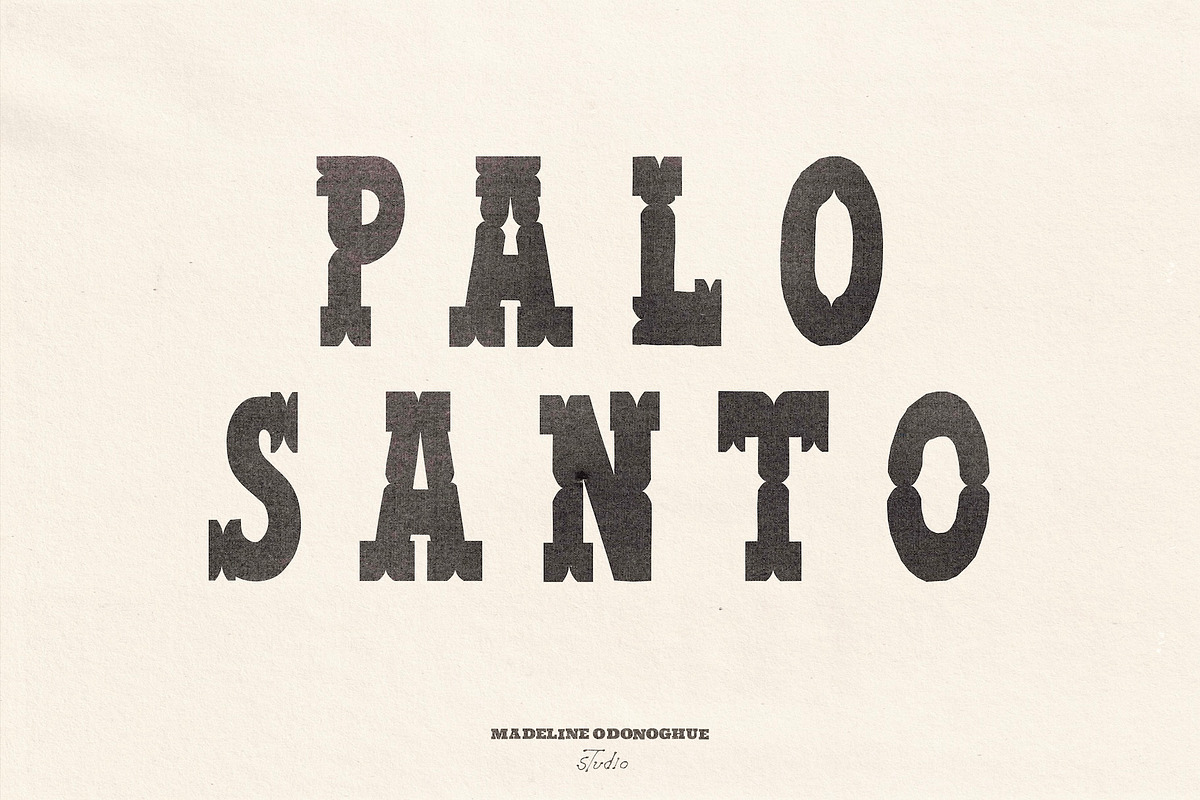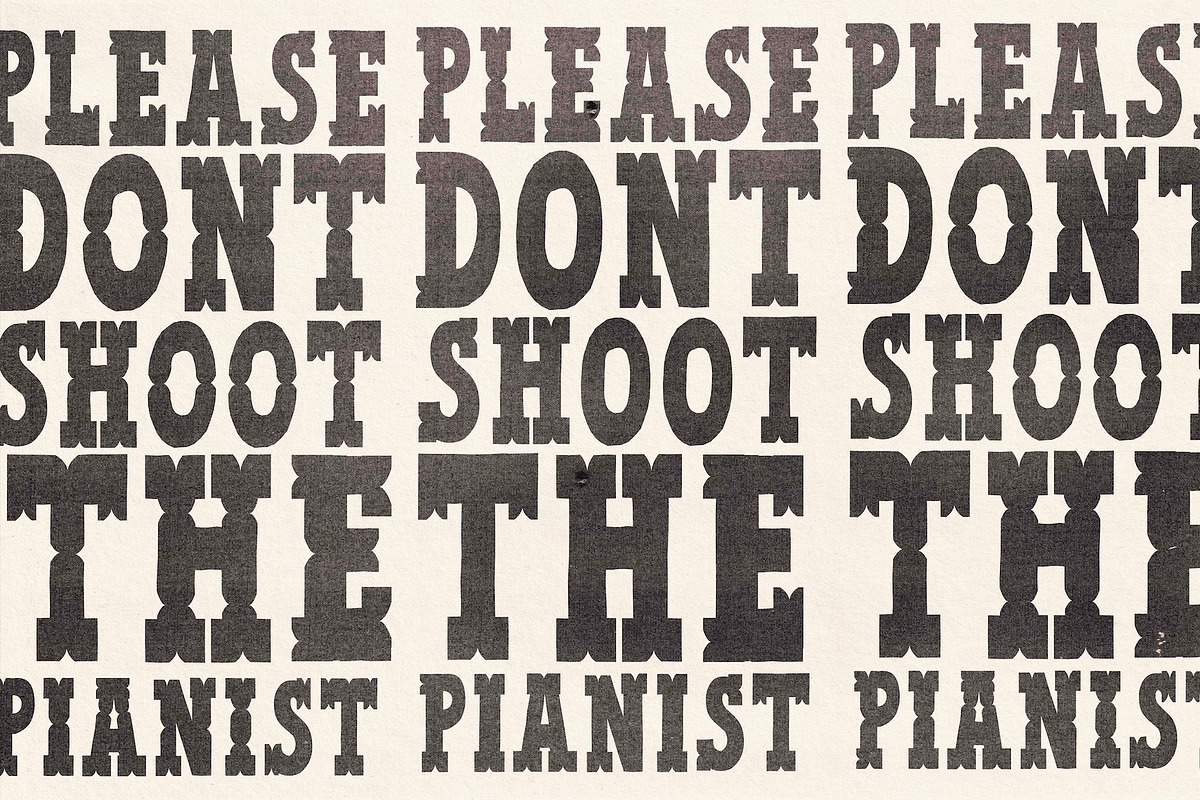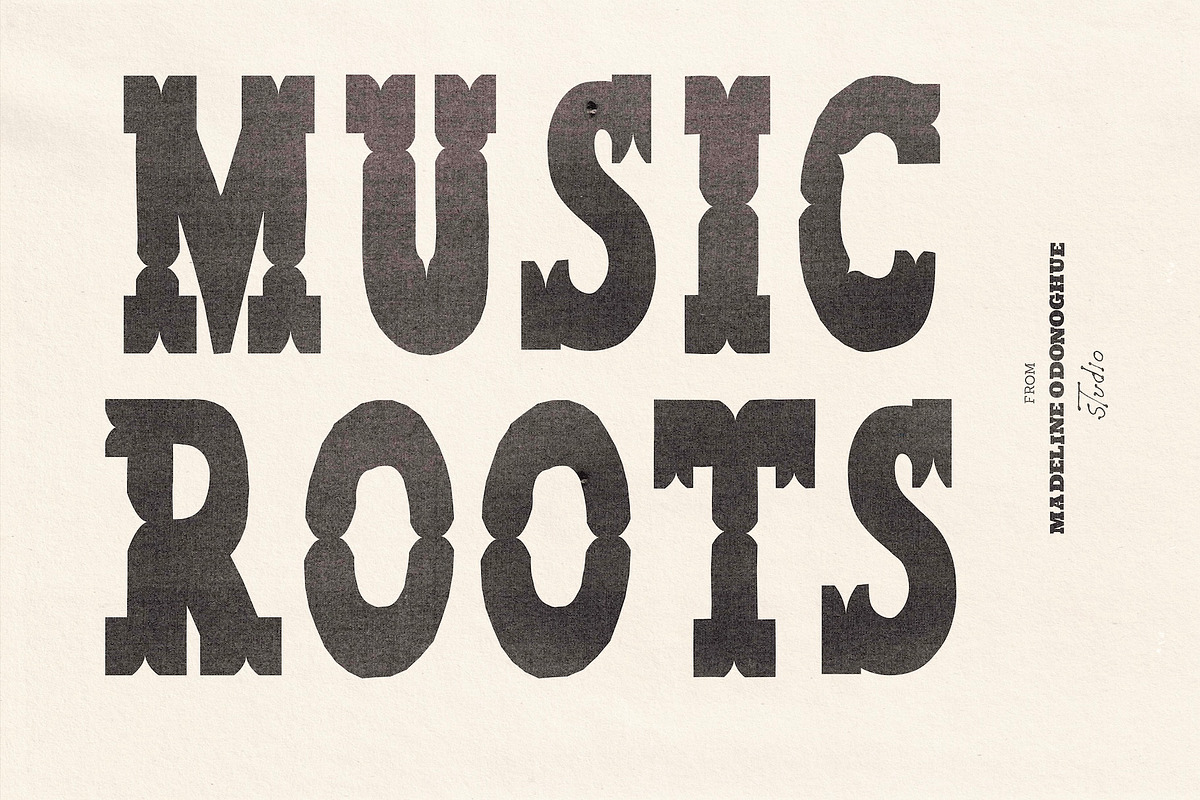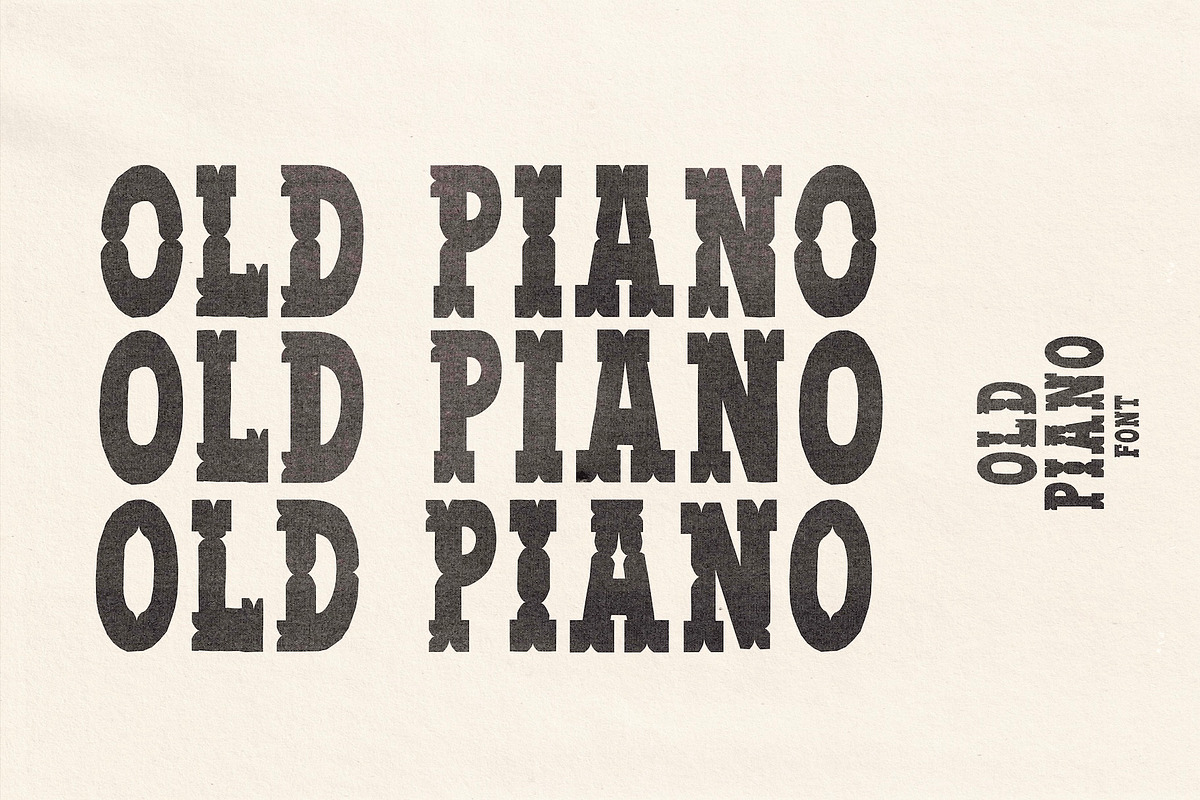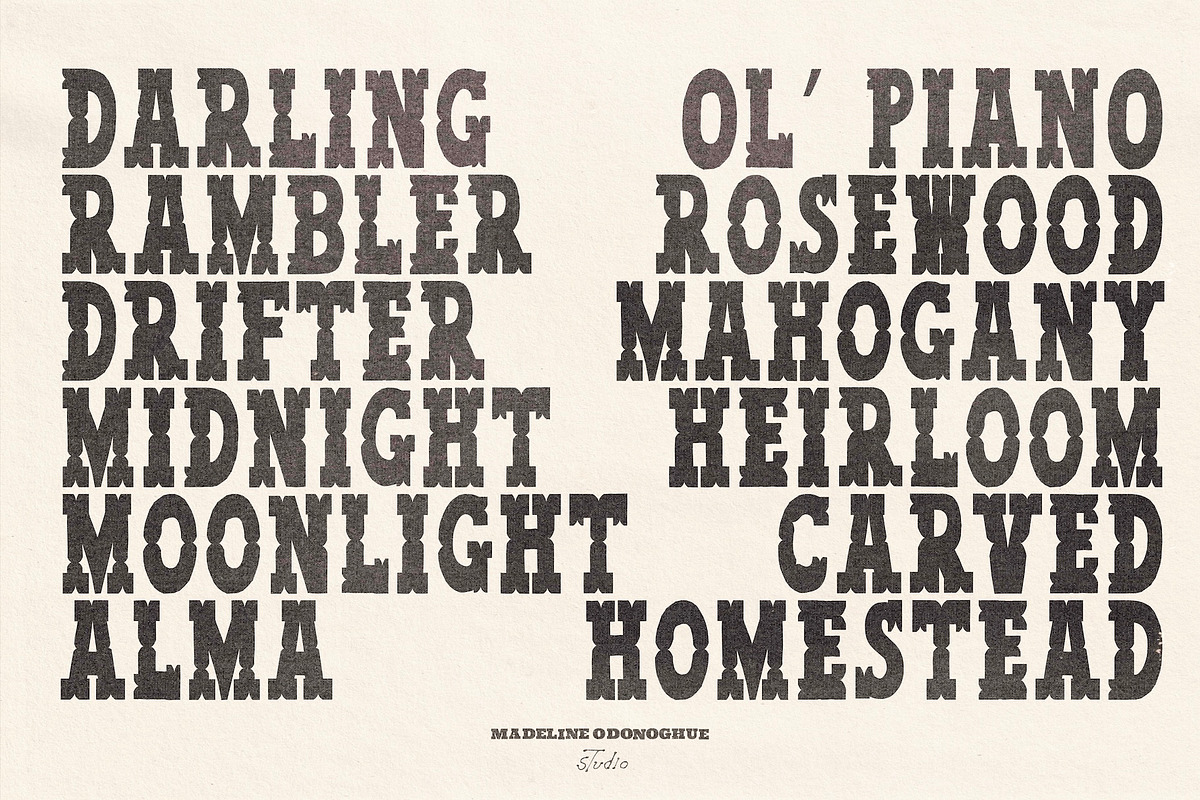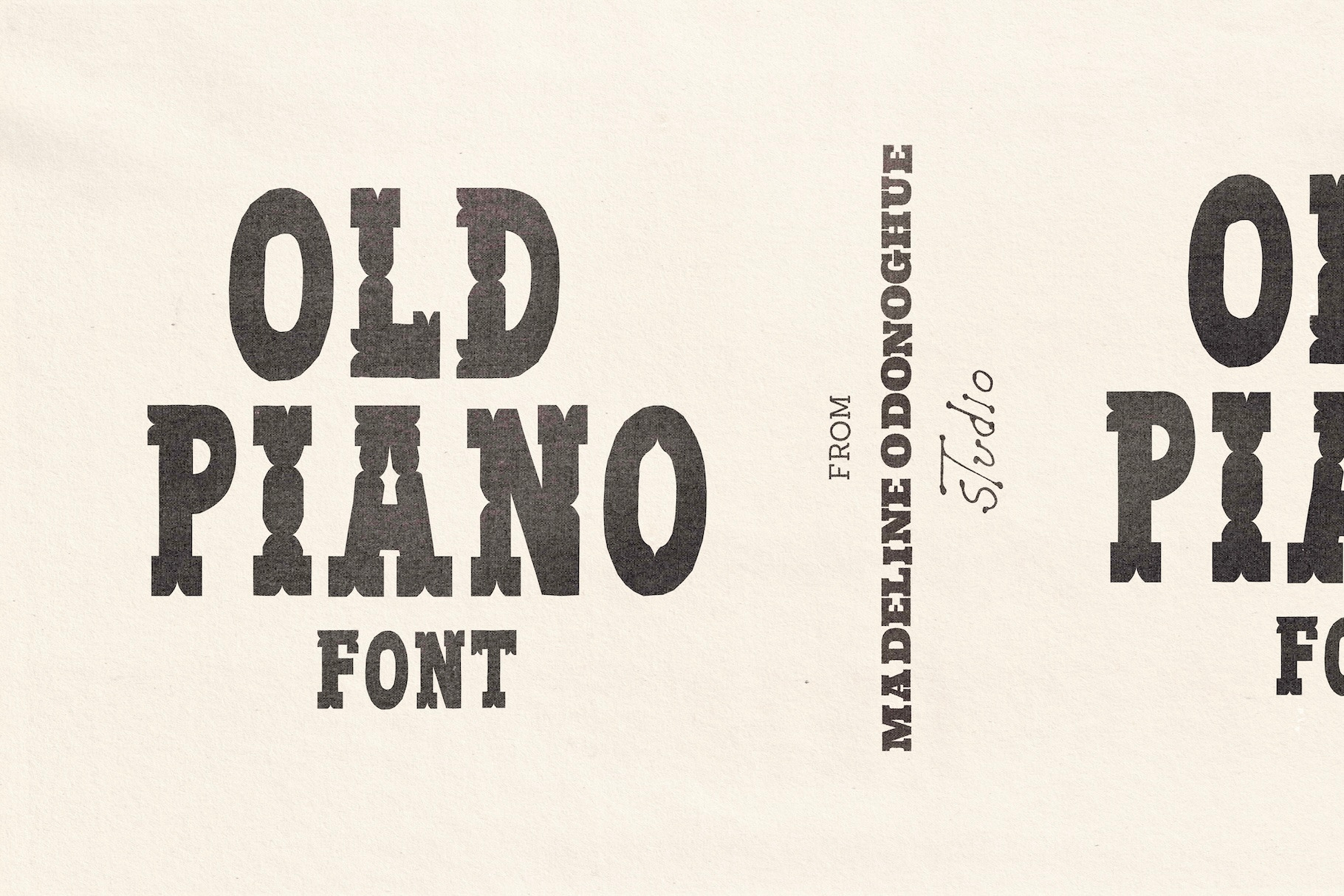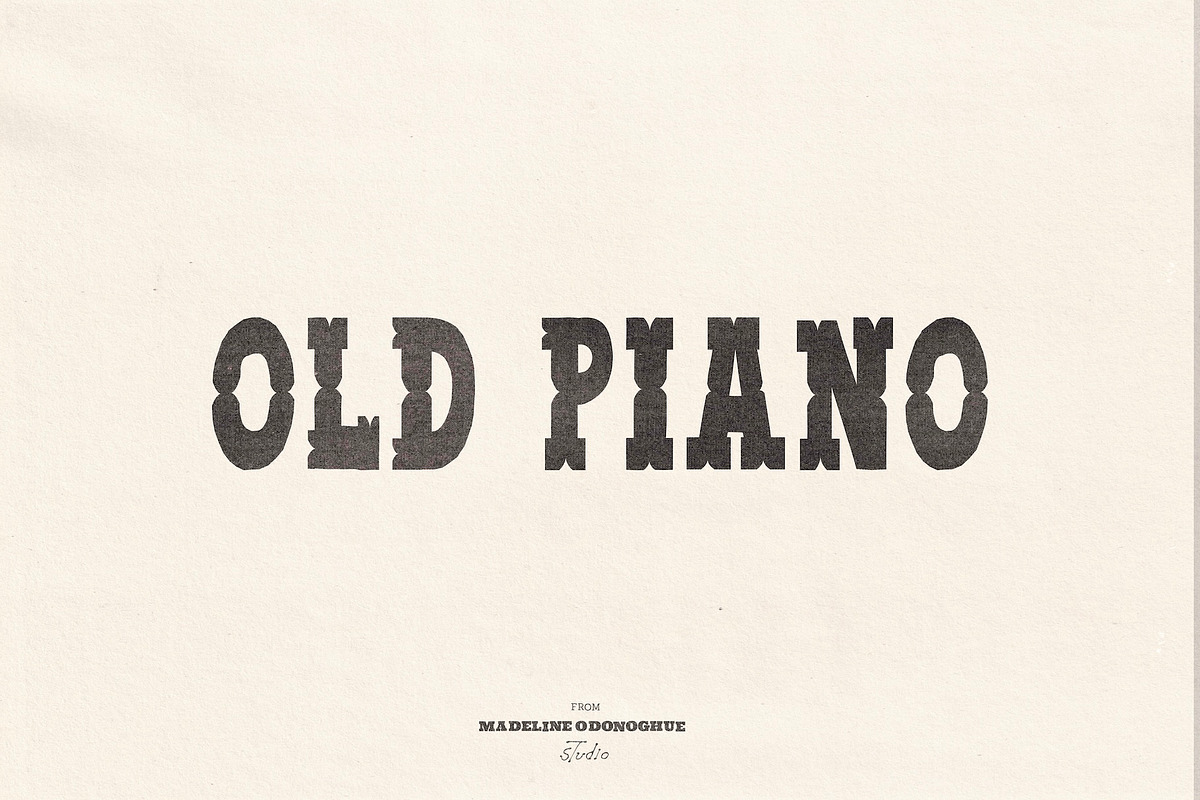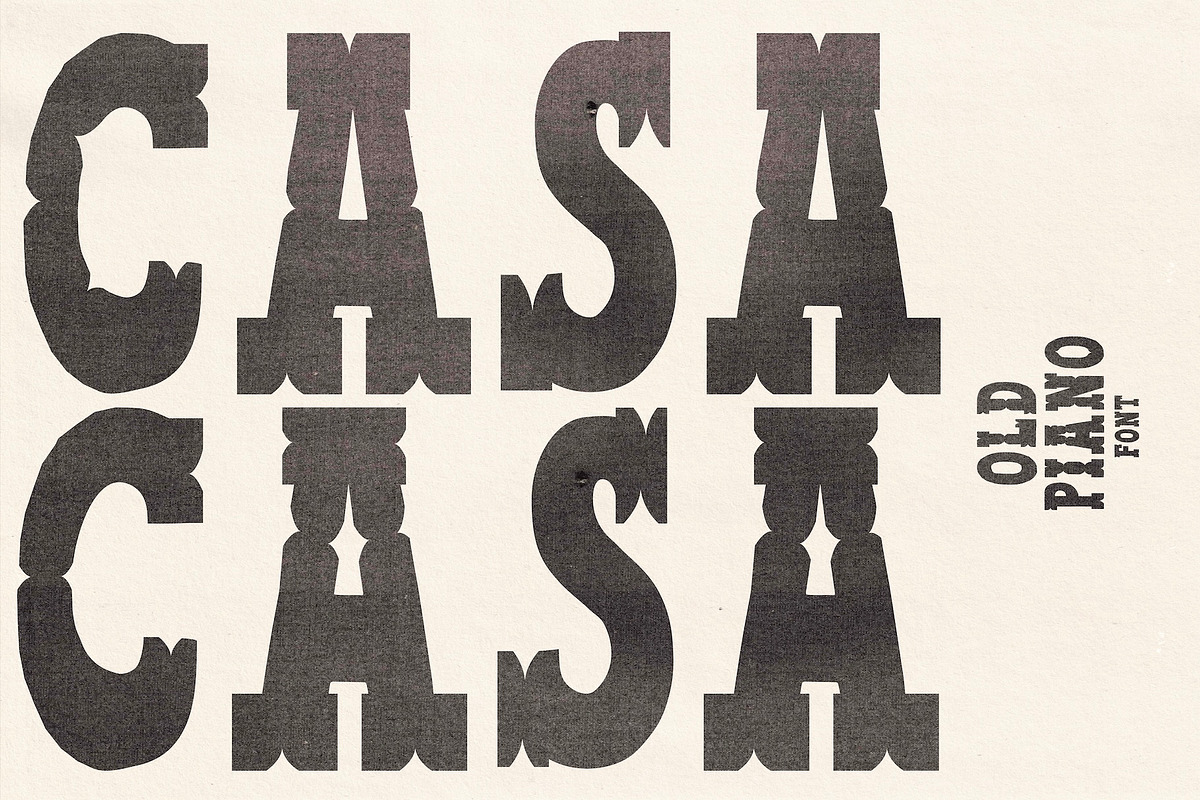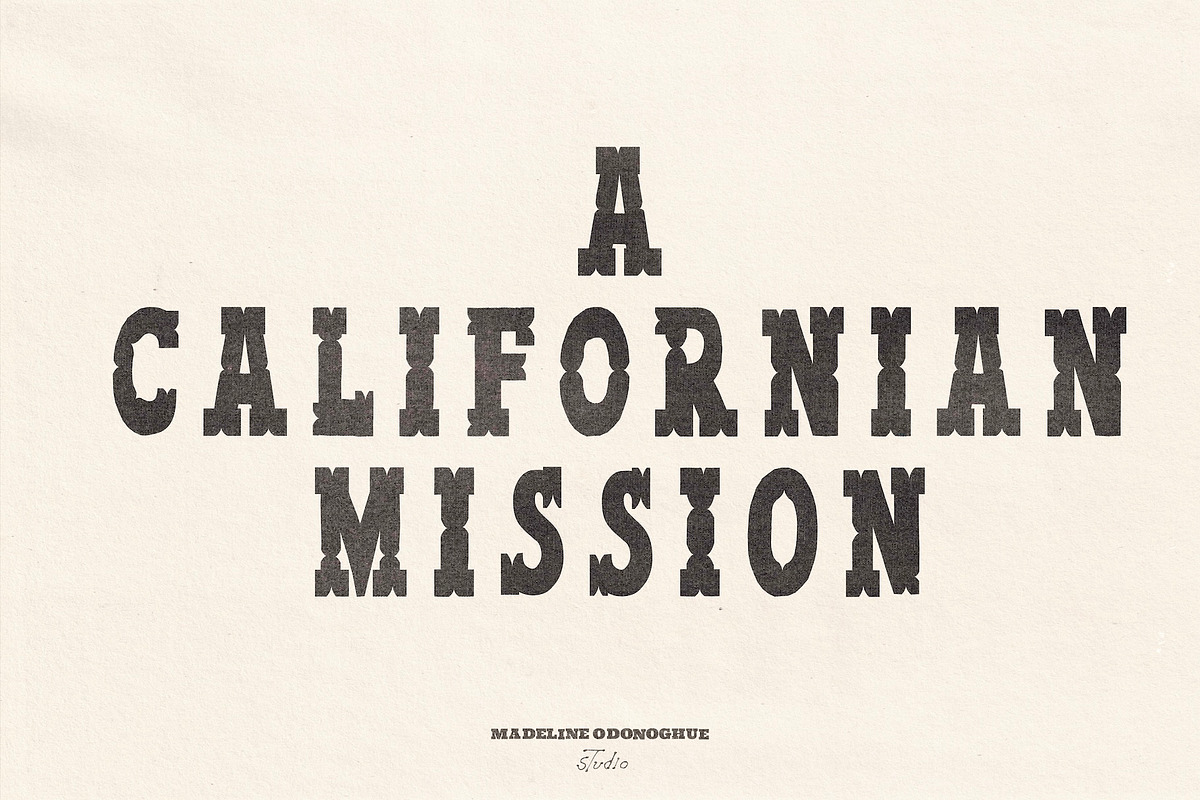
Old Piano | Hand Crafted Font
Old Piano is a hand-crafted display typeface inspired by old upright pianos, carved wooden furniture, saloon interiors, country music ephemera and vintage American print.
Tall, lean and deliberately imperfect, Old Piano is built from heavy slabs, narrow bodies, bulbous curves, pinched waists, oversized feet and strange carved details. Some letters feel architectural, while others look almost like pieces of old furniture — turned, carved and assembled by hand.
The result feels a little like an old upright piano sitting in the corner of a saloon or parlour: sturdy, decorative, slightly battered and full of character.
Rather than smoothing everything into a perfectly consistent digital alphabet, Old Piano keeps the awkwardness and irregularity of its hand-drawn beginnings. Proportions shift, feet change shape, curves wobble and individual characters don't always agree on the rules.
THREE SETS OF LETTERFORMS
Old Piano includes three complete sets of A–Z letterforms — mapped across the lowercase, uppercase and alternate characters.
Mix and match them throughout your words to introduce variation, change repeated letters and create typography that feels less uniform and more like something assembled from individual pieces of old type.
A SISTER TO SHOWBILL
Old Piano is the sister typeface to Showbill and intentionally shares the same underlying hand-drawn letter skeleton.
Where Showbill is squat, theatrical and decorated with tiny stars, Old Piano takes those familiar foundations and reworks them into taller, leaner and more pared-back forms, allowing the carved construction and unusual proportions of the letters to take centre stage.
The two fonts can be used completely independently, or paired together as companion faces when you want different levels of decoration while maintaining a shared character.
Think of them as two pieces from the same room: Showbill is the handbill announcing tonight's entertainment; Old Piano is the carved upright sitting inside.
Old Piano is an experimental display font made to be played with — imperfect, nostalgic, sturdy and just a little strange.
Three complete sets of A–Z letterforms
Lowercase-key letter set
Uppercase letter set
Additional uppercase alternates
Numbers 0–9
Very limited punctuation
PLEASE NOTE: Old Piano is an experimental display typeface designed primarily for headlines, titles, logos and short pieces of expressive typography rather than long passages of text.
Old Piano intentionally shares its underlying hand-drawn skeleton with Showbill, but has been reworked with taller, leaner proportions and a more pared-back character. The two fonts can be used independently or together.